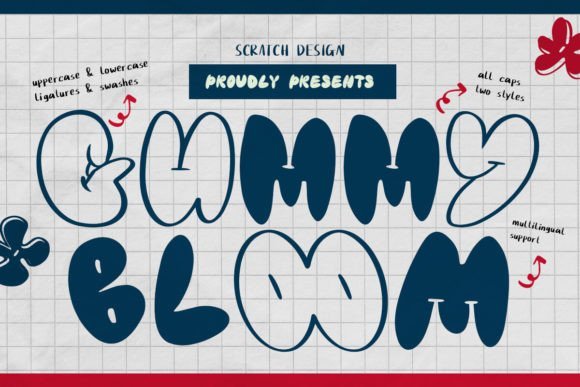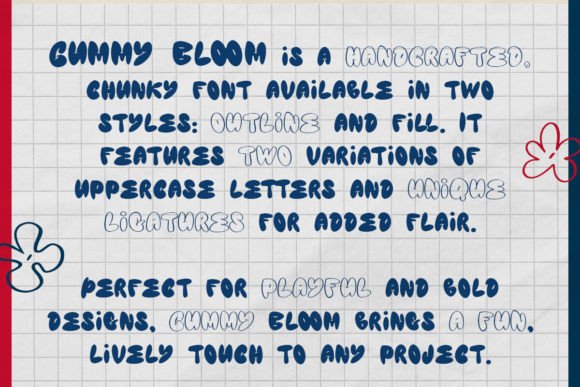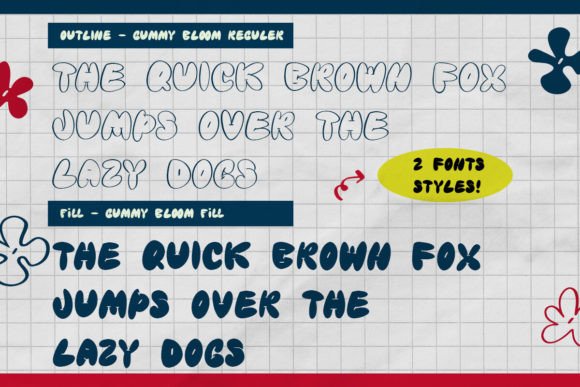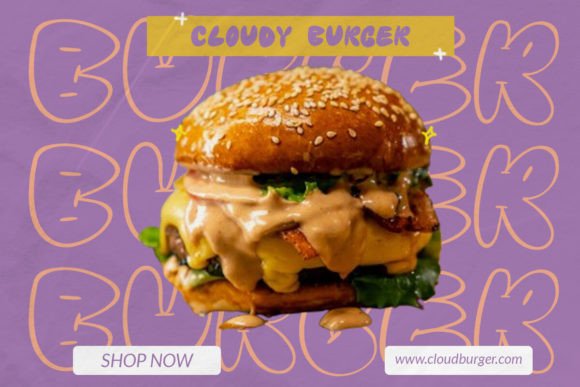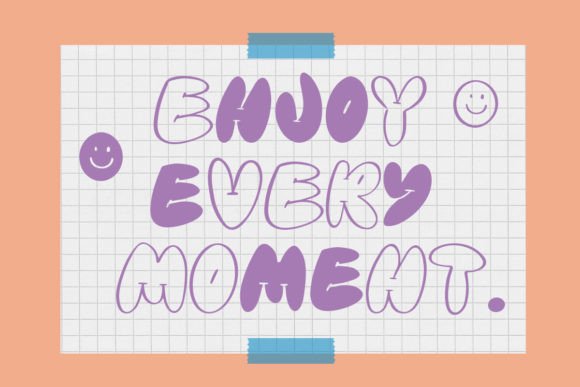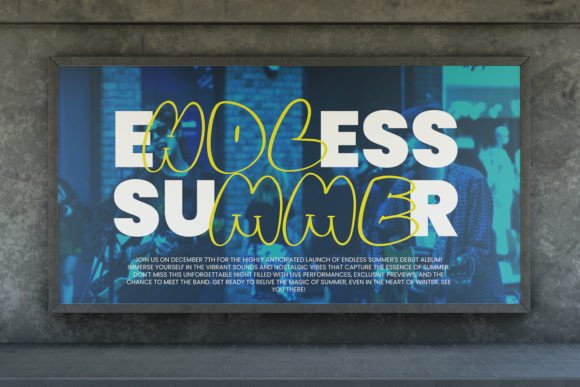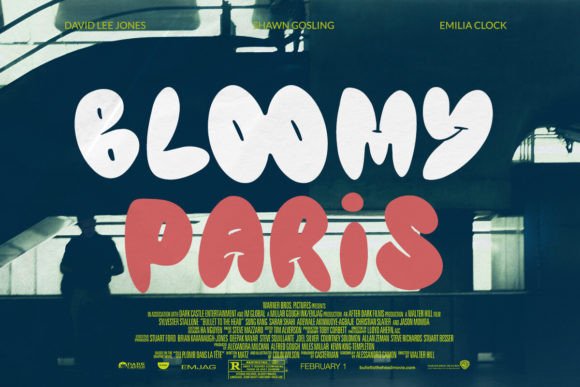
The Perfect Blend of Fun and Creativity: Gummy Bloom Font
Have you ever been in the midst of a design project, struggling to find the perfect font to bring your ideas to life? You scroll through countless options, but nothing seems to capture the playful essence you’re aiming for. This is where the Gummy Bloom Font comes in – a charming, handcrafted font designed to add a bold and vibrant touch to your projects.
With its two unique styles – outline and fill – Gummy Bloom Font offers the versatility and creativity that designers crave. From posters to social media graphics, this chunky font is perfect for adding a fun and lively style to any project. Its delightful appearance and customizable options make it a valuable asset for designers looking to create memorable and engaging designs that stand out.
Gummy Bloom Font Key Features
- Unique Characteristics: This font features a unique blend of modern and playful elements, with a focus on rounded shapes and vibrant colors, making it ideal for digital and print applications.
Gummy Bloom Font Review
I was excited to dive into the world of Gummy Bloom Font, and overall, I was pleasantly surprised. The font’s unique blend of playful and whimsical characteristics makes it perfect for projects that need a touch of magic.
What works well: ✨ The font’s color-changing effect is a game-changer. It adds an extra layer of visual interest and creates a sense of movement, making the text feel more dynamic. ✨ The font’s versatility is impressive, with a wide range of weights and styles to choose from.
- ✨ The font’s ability to adapt to different backgrounds and designs is impressive.
- ✨ The font’s high-resolution quality makes it perfect for printing and digital use.
However, I did encounter a few limitations: ⚠️ The font’s lack of support for certain languages can be a problem for global projects. ⚠️ The font’s color-changing effect can be overwhelming if not used judiciously.
Overall, I’d say Gummy Bloom Font is a solid choice for projects that need a playful and whimsical touch. While it has some limitations, the font’s unique features and versatility make it a great addition to any designer’s toolkit.
Tips for Getting the Most Out of Gummy Bloom Font
For best results, use the Gummy Bloom font in bold or italic styles to add emphasis and visual interest to your text. You can also use it in combination with other fonts to create a unique and eye-catching design.
The Gummy Bloom font is perfect for creating playful and whimsical designs, such as children’s book illustrations, party invitations, and social media graphics. It’s also great for adding a touch of personality to your branding and marketing materials.